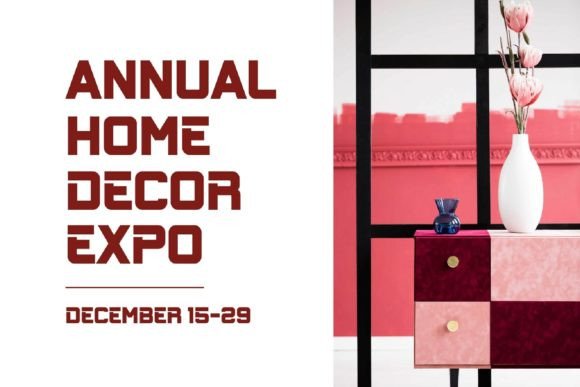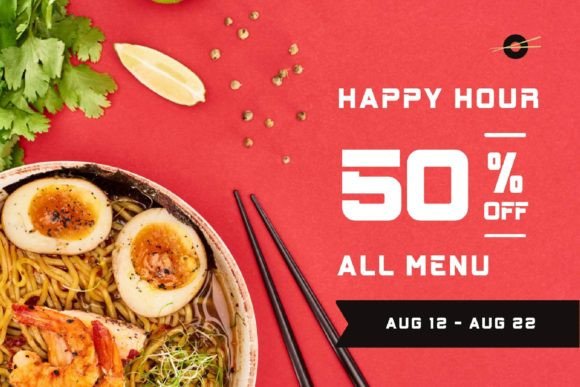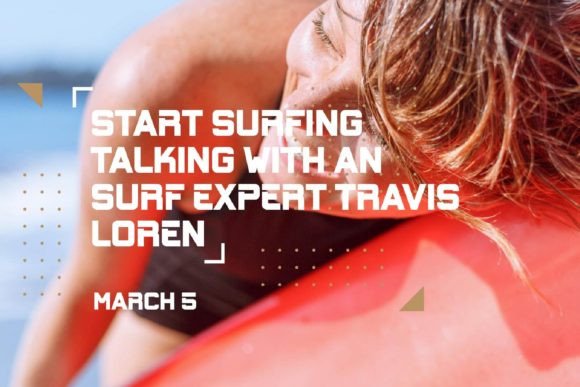
Buren Font: A Modern Sans Serif for Bold Logo Design & Branding
About the Buren Font
The Buren Font offers a perfect balance of form and function for your design needs. Buren is a sans serif typeface inspired by the famous minimalist logo perfect for the purposes of designing templates, brochures, videos, advertising branding, logos, invitation, layout design, elegant crafting, beauty design and other.
Buren’s clean lines and minimalist aesthetic make it ideal for headlines, logos, and short, impactful text within branding materials and posters. Its strength lies in creating a sense of modern sophistication; it excels in conveying authority and clarity. Avoid using Buren for body text or lengthy paragraphs, as its simplicity might become monotonous over extended reading.
The font’s inherent boldness pairs well with delicate script fonts like Playfair Display for a touch of elegance, or a geometric sans-serif like Montserrat for a contemporary, balanced feel. For a more playful contrast, consider pairing it with a rounded sans-serif such as Bebas Neue.
Buren projects a confident, minimalist personality. It’s a perfect choice for brands seeking to convey professionalism, modernity, and a sense of understated luxury.
Buren Font Usage Examples